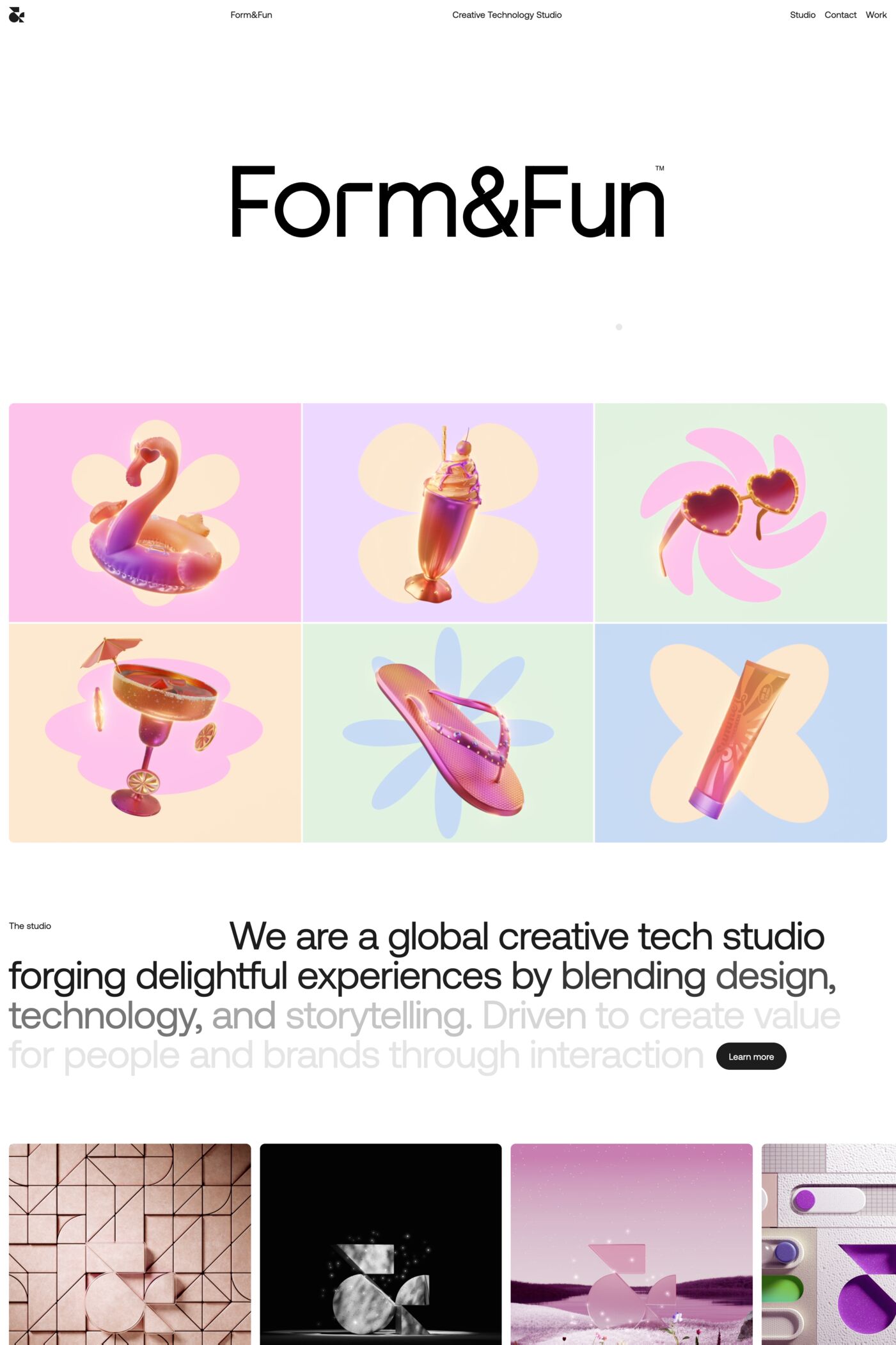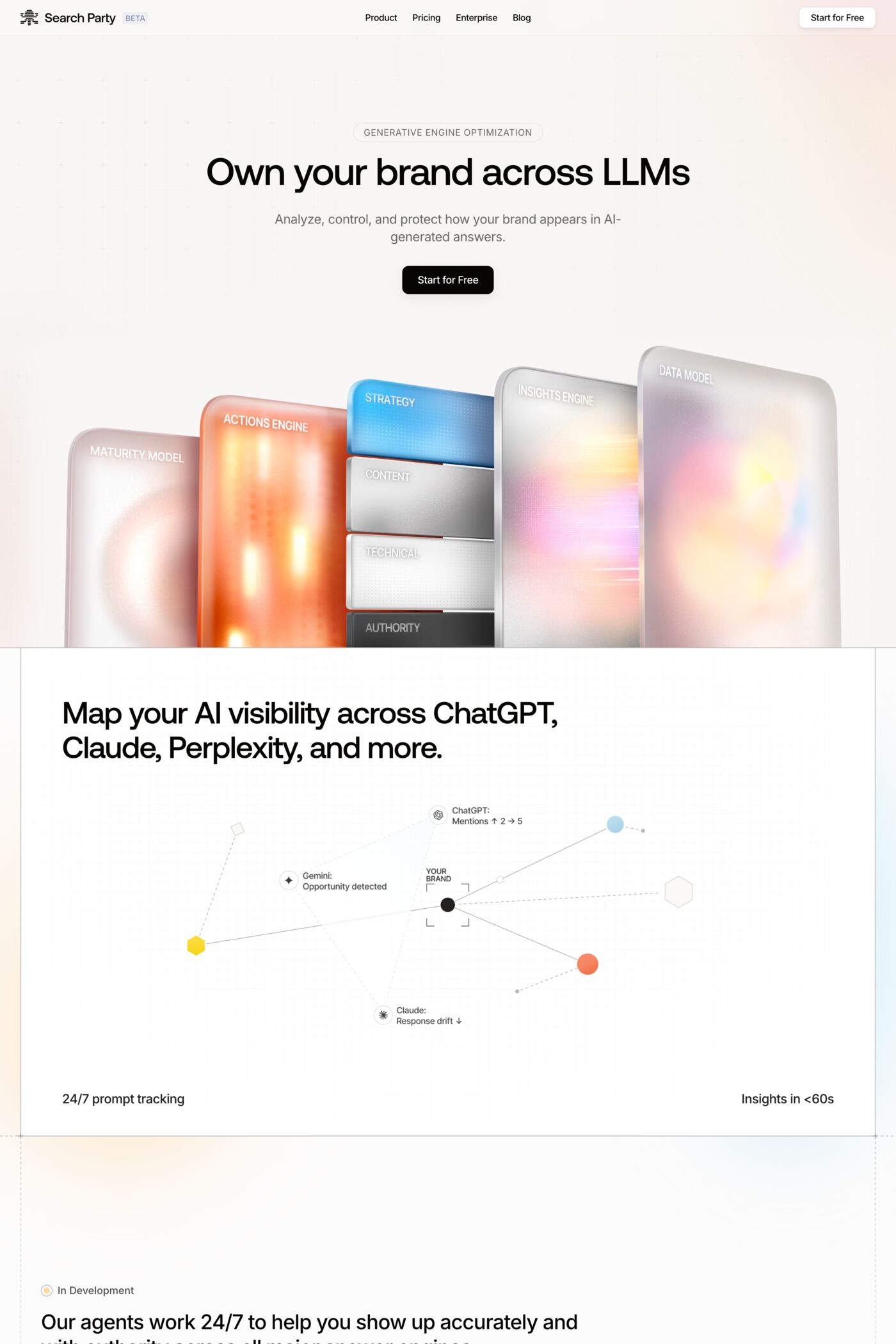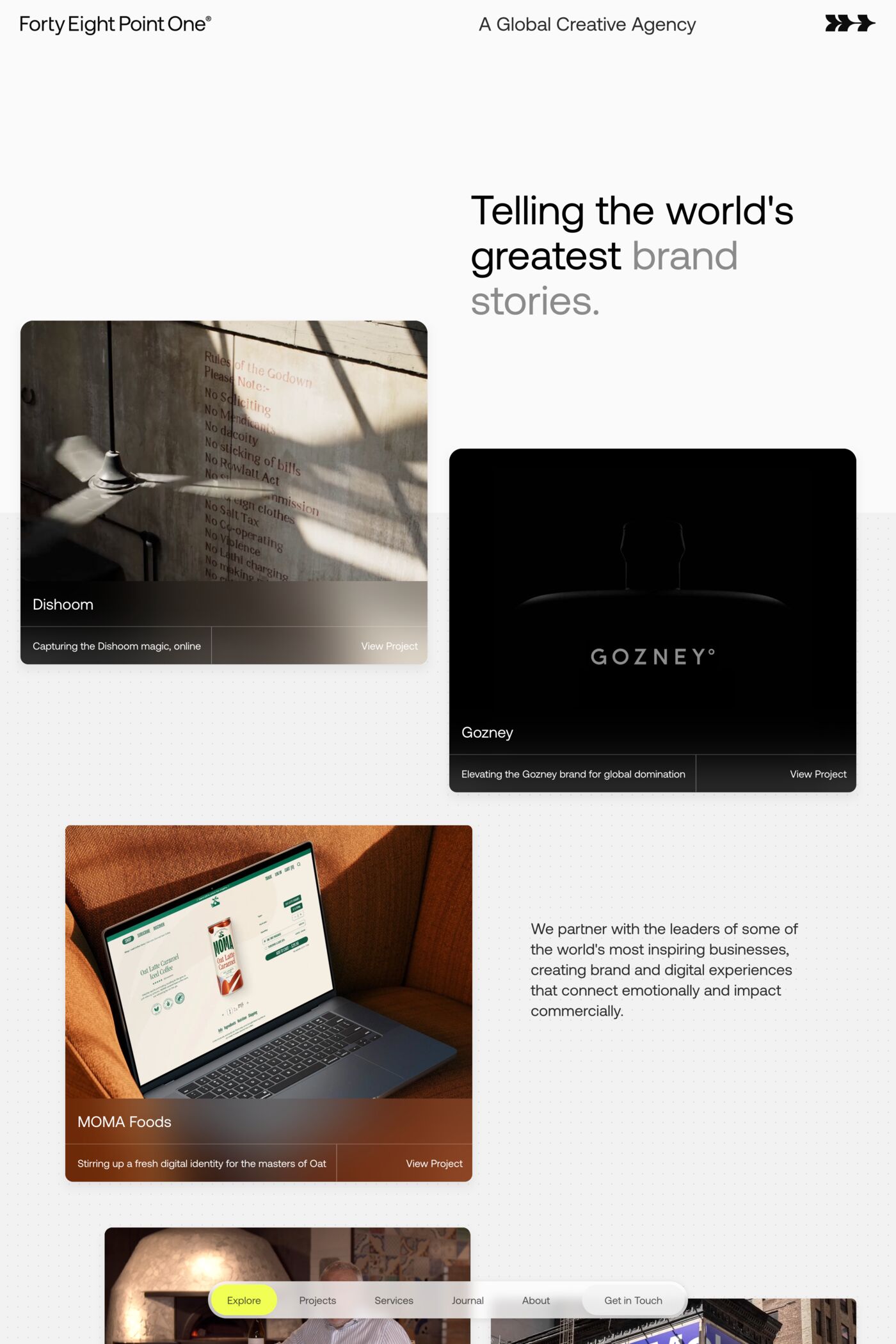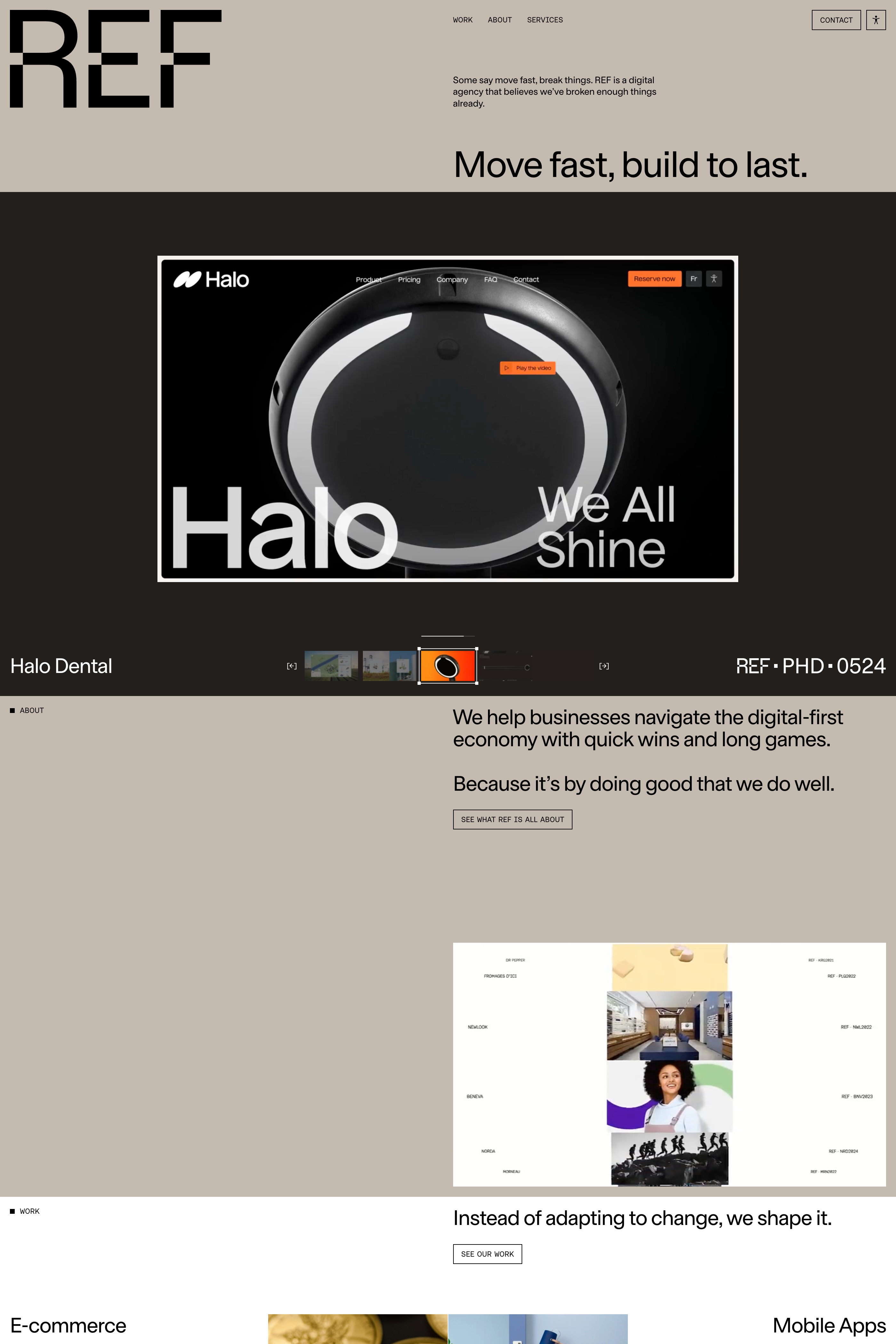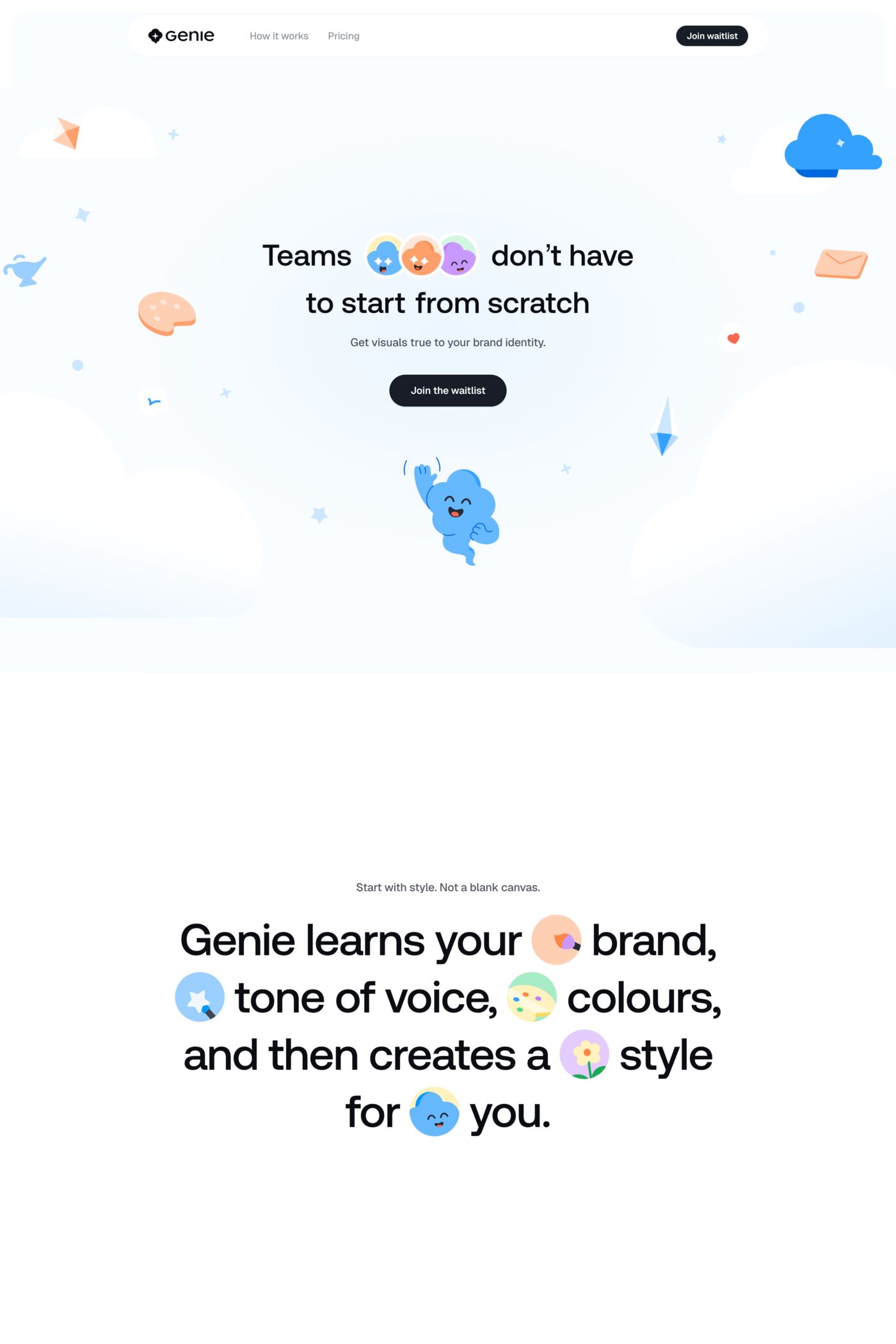
Aeonik is a sans-serif typeface from CoType Foundry.
Aeonik: a structural workhorse, crafted with mechanical detail. Conceived as a ‘neo-grotesque with a geometric skeleton’ Aeonik holds rigidity and coldness through strict perpendicular terminals: noticeably within the “a”, “t”, “f” and “j”. These are offset by the geometric nature of the “c”, “e”, “o” and “y”. Aeonik also celebrates the first collaboration between Mark Bloom and Joe Leadbeater.